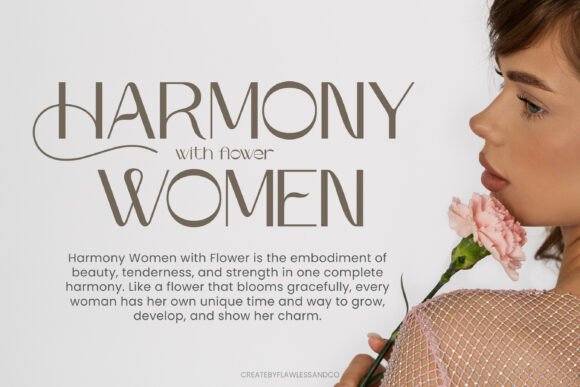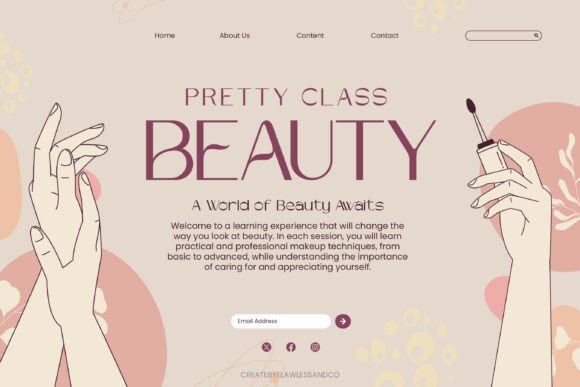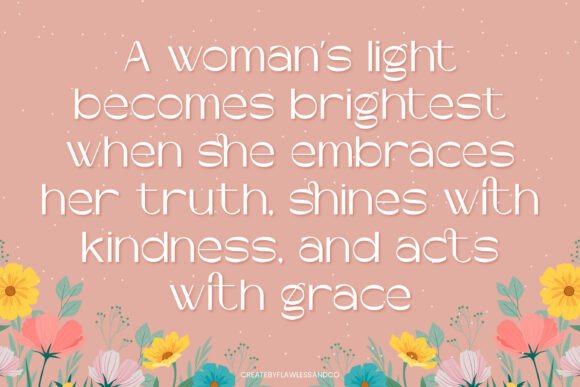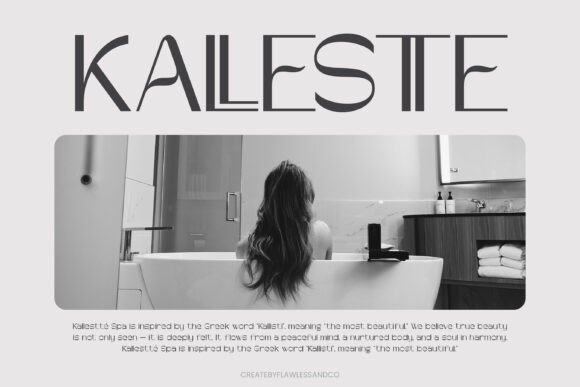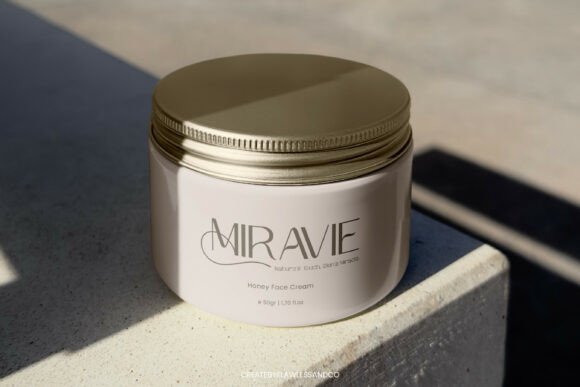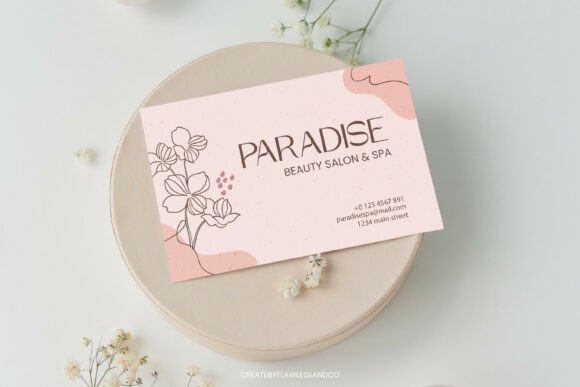
Discover the Elegance of Amoura Font: Elevate Your Designs with Modern Femininity
In the world of typography, fonts play a crucial role in conveying the tone and aesthetic of a design. For creators seeking to infuse their projects with elegance, softness, and modern femininity, the Amoura Font stands out as an exceptional choice. This refined sans display font is meticulously crafted to embody the essence of sophistication, making it perfect for beauty, fashion, and lifestyle designs.
The Essence of Amoura Font
AMOURA is not just a font; it’s an experience. It brings to the table a harmonious blend of graceful curves and delicate alternates, ensuring that every letter flows with a poetic rhythm. This unique characteristic allows Amoura to capture attention effortlessly, adding a touch of charm and refinement to any visual storytelling. Whether you’re working on a beauty blog, a fashion magazine, or a lifestyle brand, Amoura’s clean and stylish form is sure to elevate your designs.
Key Features of Amoura Font
- Elegant and Refined: Amoura’s design is centered around elegance. Its refined features make it an ideal choice for projects that demand a high level of sophistication.
- Soft and Modern Femininity: The font exudes a soft, modern femininity that resonates well with audiences in the beauty, fashion, and lifestyle sectors.
- Graceful Curves and Delicate Alternates: The graceful curves and delicate alternates in Amoura ensure a poetic flow, adding a dynamic and engaging element to your text.
- Clean and Stylish Form: Amoura’s clean and stylish appearance brings a touch of sophistication to any design, making it versatile for various applications.
Applications of Amoura Font
The versatility of Amoura Font makes it suitable for a wide range of design projects. Here are some of the areas where Amoura truly shines:
- Beauty and Cosmetics: For beauty blogs, cosmetic packaging, or promotional materials, Amoura adds a touch of elegance and allure.
- Fashion: Amoura’s modern femininity and stylish appearance make it perfect for fashion magazines, brand logos, and clothing labels.
- Lifestyle: For lifestyle blogs, wellness websites, or any project aiming to convey a sense of sophistication and charm, Amoura is an excellent choice.
Why Choose Amoura Font?
In a sea of fonts, Amoura stands out for several reasons:
- Unique Poetic Rhythm: The font’s unique flow and rhythm ensure your text doesn’t just convey information but tells a story.
- Attention-Grabbing: Amoura’s elegant and refined features are designed to capture attention, making your designs more engaging.
- Sophistication and Charm: The font brings a level of sophistication and charm that’s hard to achieve with standard fonts.
Amoura Font is more than just a typeface; it’s a design statement. With its refined features, elegant curves, and poetic rhythm, Amoura offers a fresh perspective on modern femininity and sophistication. Whether you’re a designer, a craftsperson, or a business owner looking to elevate your brand’s visual identity, Amoura is a go-to choice for adding charm and refinement to your projects. Discover the elegance of Amoura Font and take your designs to new heights of creativity and appeal.